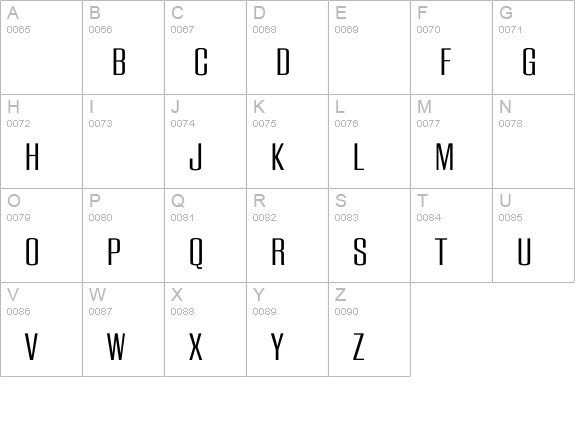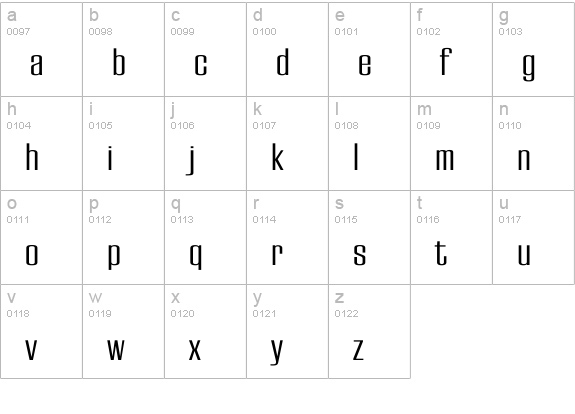
EuropaGrotesqueLight Font Details
Europa Grotesque Light is a modern and elegant font that exudes sophistication and versatility. With its clean lines and balanced proportions, this typeface is perfect for a wide range of design projects, from branding and advertising to editorial and web design. The light weight of Europa Grotesque adds a touch of subtlety and delicacy to any text, making it ideal for conveying a sense of refinement and sophistication. Its clear, sans-serif design ensures excellent readability, making it suitable for both display and body text. What's even better is that Europa Grotesque Light is available for free download at FontsMarket.com. This means you can easily access this high-quality font and use it in your projects without any cost. So why wait? Elevate your designs with Europa Grotesque Light today!